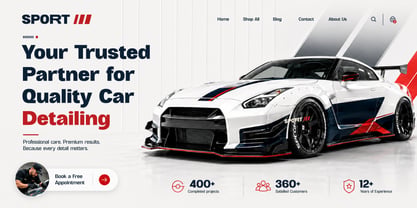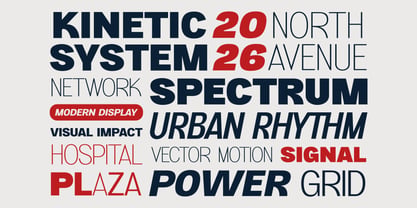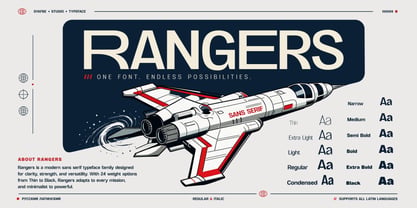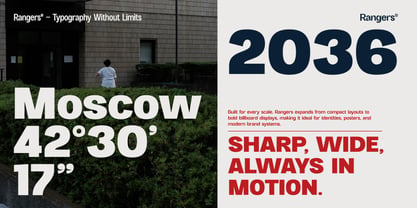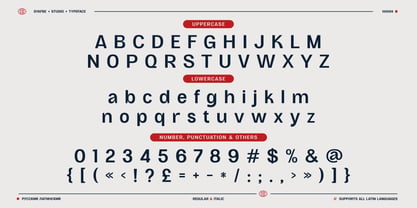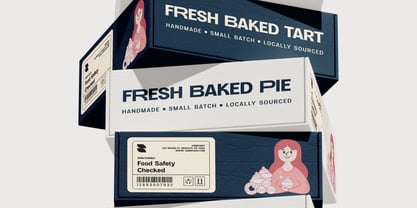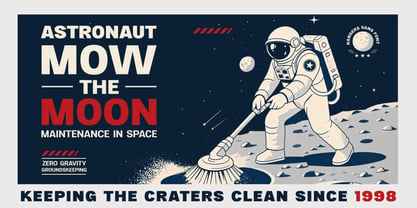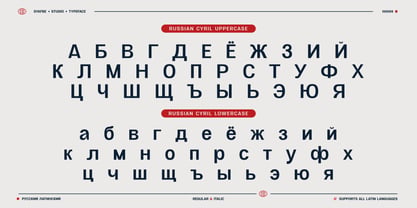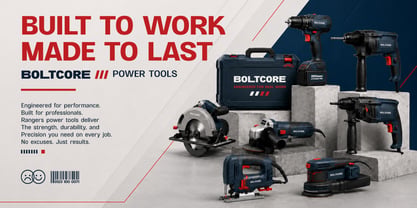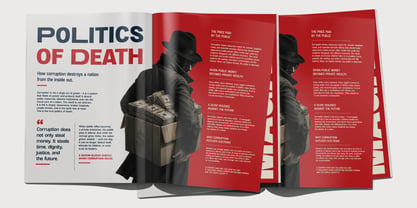
Rangers
by Syafbe
Rangers is a modern font family with 24 style/variant options, making it highly flexible for various design needs, from light and elegant variations to strong and bold looks. With clean, professional, easy-to-read, and modern-looking letter characters, this font is very suitable for use in logos, branding, poster headlines, flyers, banners, social media content, merchandise, product packaging, sports design, esports, gyms, automotive, outdoor, and other commercial needs. Rangers gives a strong, premium, masculine, minimalist, and confident impression, making it the right choice for brands or designs that want to stand out, solid, and have character.